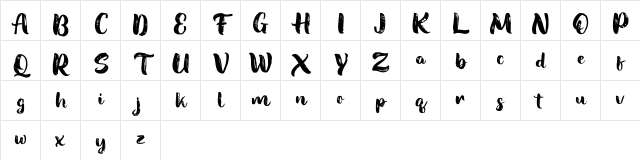
Complete Soondae Font Texture FREE Regular glyph index. Displaying only characters natively supported by Soondae Font Texture FREE Regular font.
Soondae Font Texture FREE embraces imperfection - its rough, textured character adds raw authenticity to designs that want to feel lived-in and unconventional.
Pro Tip: Use Soondae Font Texture FREE at larger sizes where the texture and irregularity of each letterform can be clearly seen - it loses its character at small sizes.